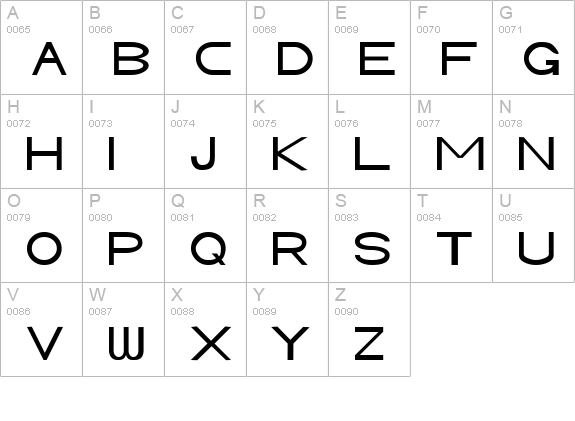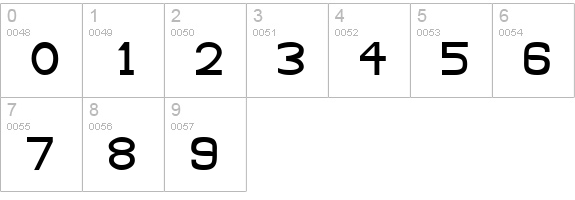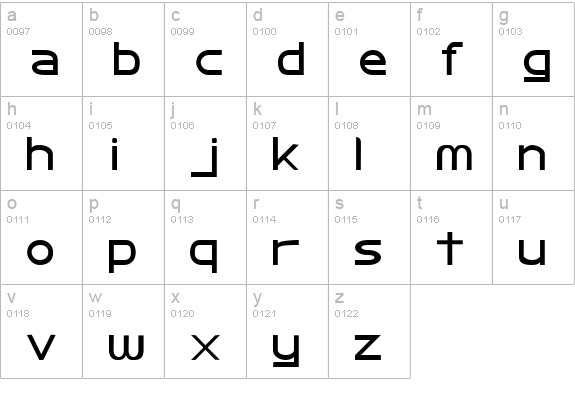
Abtecia Basic Sans Serif Font Font Details
Abtecia Basic Sans Serif Font is a modern and sleek typeface that exudes simplicity and elegance. With its clean lines and balanced proportions, this font is perfect for a wide range of design projects, from branding to editorial layouts. The versatility of Abtecia Basic Sans Serif Font makes it a go-to choice for designers looking for a timeless and contemporary look. What makes Abtecia Basic Sans Serif Font even more appealing is that it is available for free download at FontsMarket.com. This means that you can easily access this high-quality font without any cost, making it a valuable addition to your font library. Whether you're working on a personal project or a client's design, Abtecia Basic Sans Serif Font is sure to elevate your work with its sophisticated and refined aesthetic.